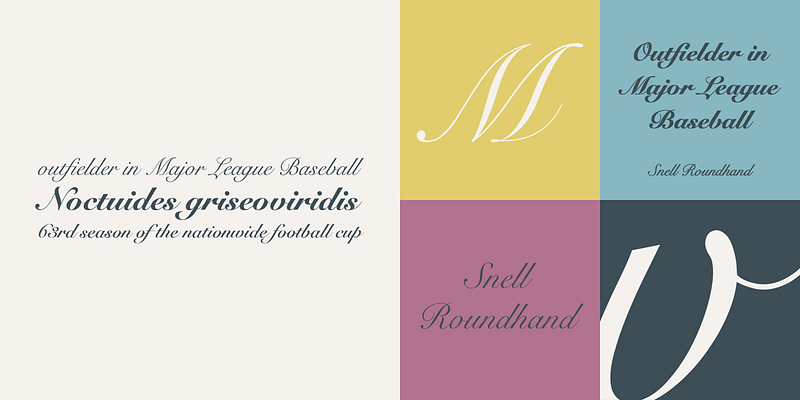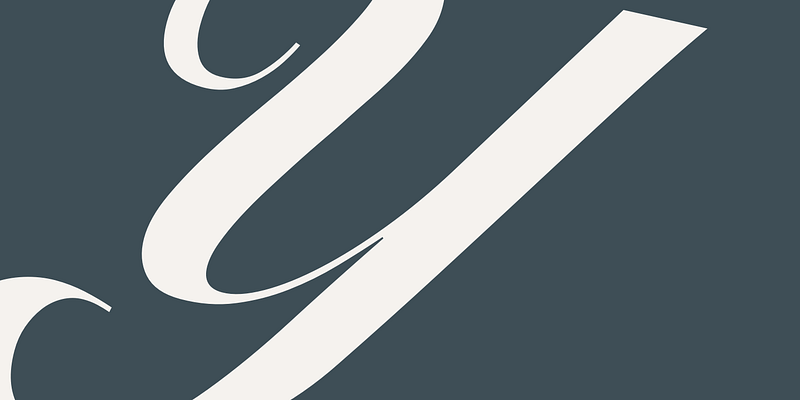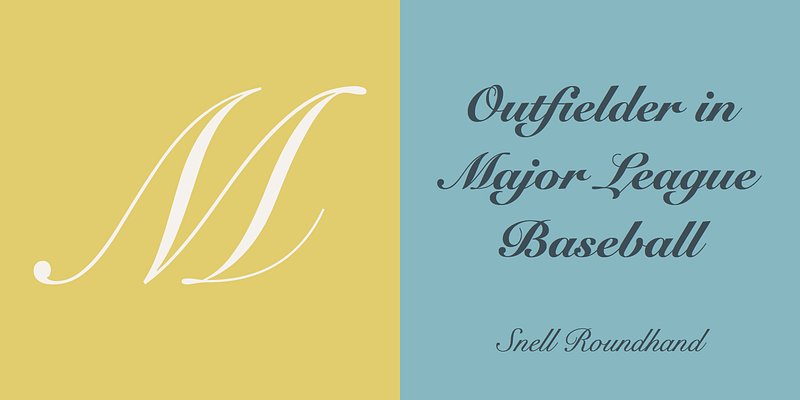
Snell Roundhand Script was designed in 1965 by Matthew Carter. Conception and design were both based on the 18th century round hand scripts. The font has an elegant and festive feel and its capitals can also be used as initials mixed with other alphabets. Snell Roundhand Script is well-suited to middle length texts and headlines.